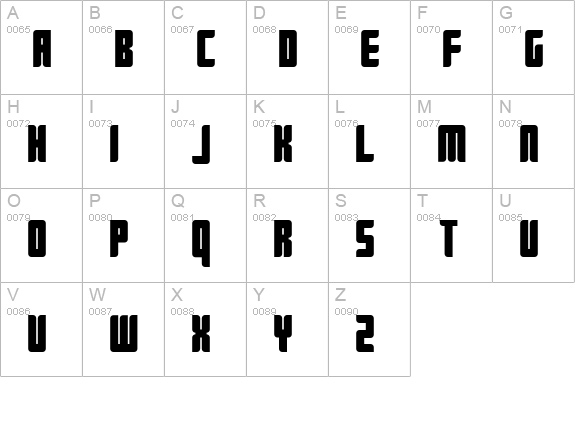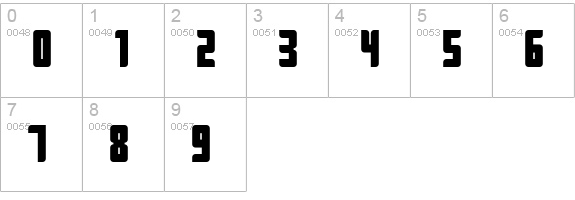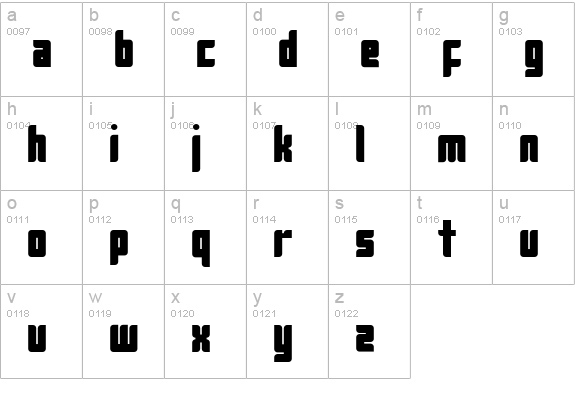
Push2Black Font Details
Introducing Push2Black font, a bold and stylish typeface designed to make your text pop with a modern edge. This versatile font is perfect for headlines, titles, and graphic designs that demand attention. With its strong, clean lines and sleek appearance, Push2Black exudes confidence and sophistication. Best of all, Push2Black font is available for free download at FontsMarket.com. Whether you're a designer looking to add a striking element to your projects or a business owner seeking a fresh look for your branding, Push2Black is the perfect choice. Don't miss out on this opportunity to elevate your designs with this eye-catching font. Download Push2Black today and take your typography to the next level!